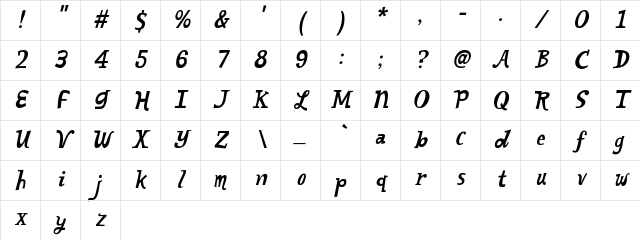
MizdemeanorThreeItalicPKA is a composed and adaptable typeface that performs quietly and consistently across a wide range of design contexts. The slanted form adds forward momentum and visual energy.
Pro Tip: Use MizdemeanorThreeItalicPKA for emphasis, pull quotes, and subheadings where its slanted energy can add rhythm to the layout.